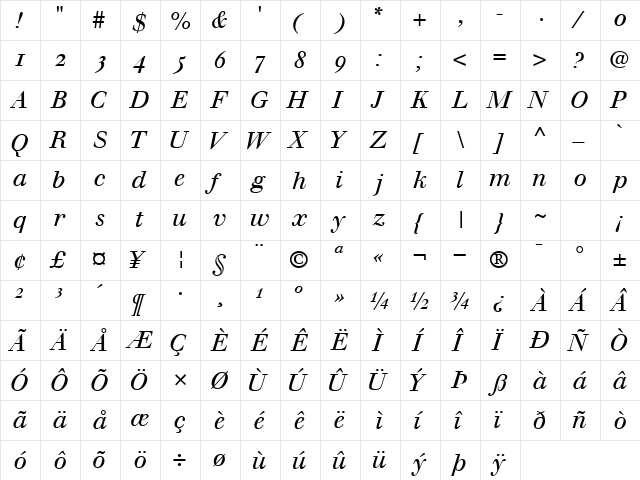
WalbaumOSSSK Italic
Design Context for WalbaumOSSSK Typeface
WalbaumOSSSK is a composed and adaptable typeface that performs quietly and consistently across a wide range of design contexts. The slanted form adds forward momentum and visual energy.
Pro Tip: Try WalbaumOSSSK for annotation and caption copy alongside an upright companion — the contrast in angle creates a dynamic but ordered typographic system.